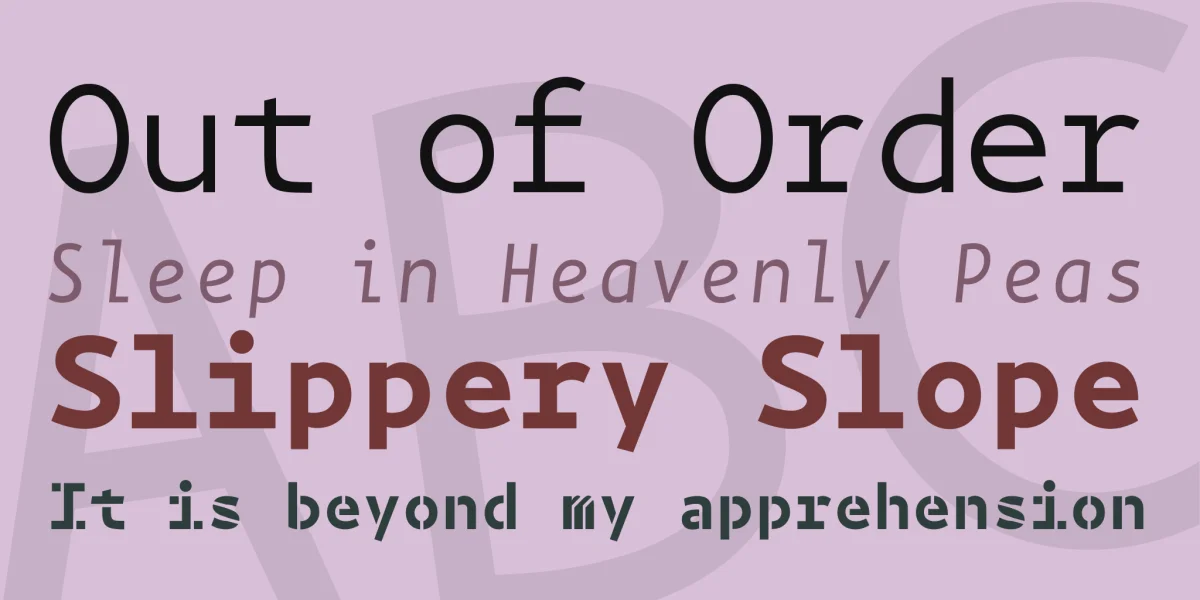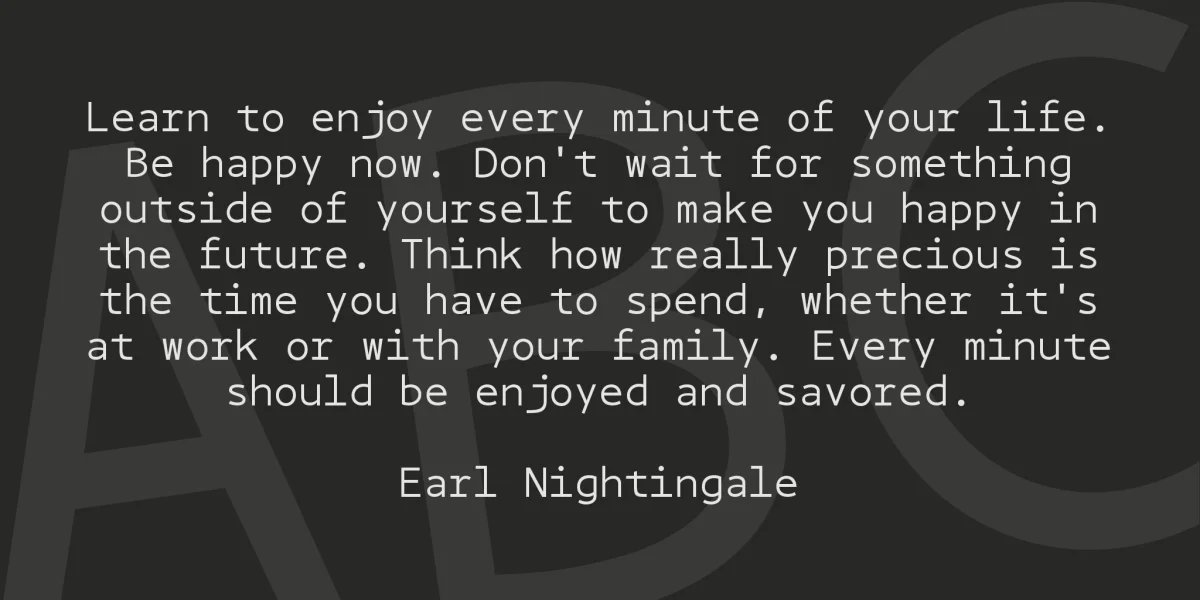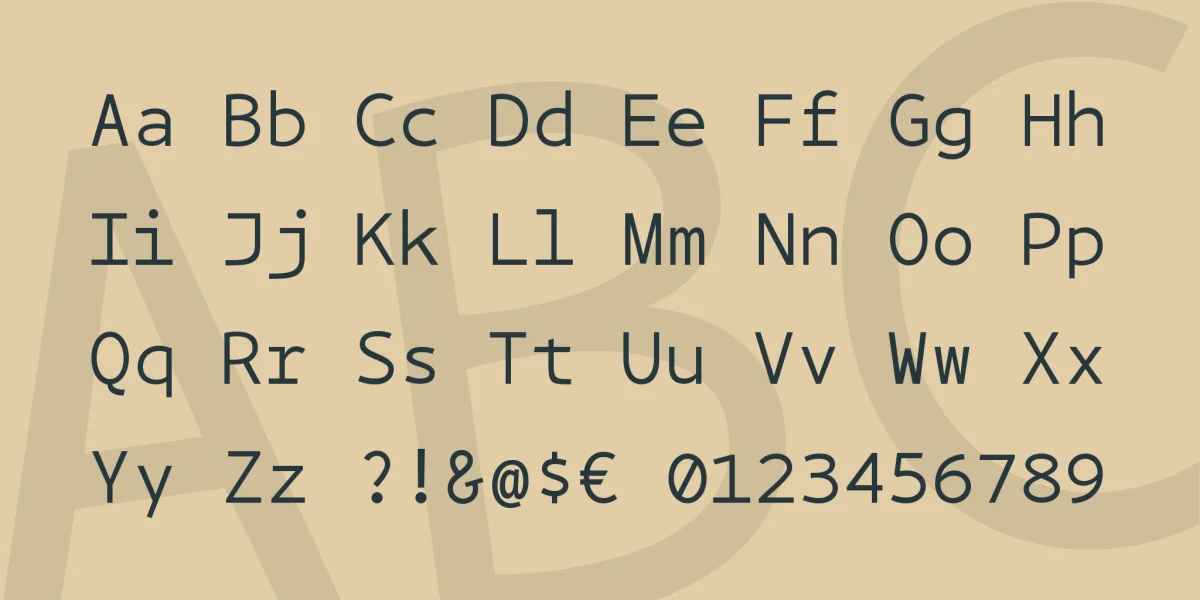
A monospaced typeface suitable for technical texts and/or programming. BPmono and BPmono Bold are manually hinted from 9px to 16px making it appropriate for use in various advanced text and programming editors (eg. Visual Studio .net, Visual Web Developer, MS Word etc). All three fonts are available in TTF format.
Tip: A monospaced font should always be aligned left (or right, at worst) and never justified or centered in order to remain actually monospaced.